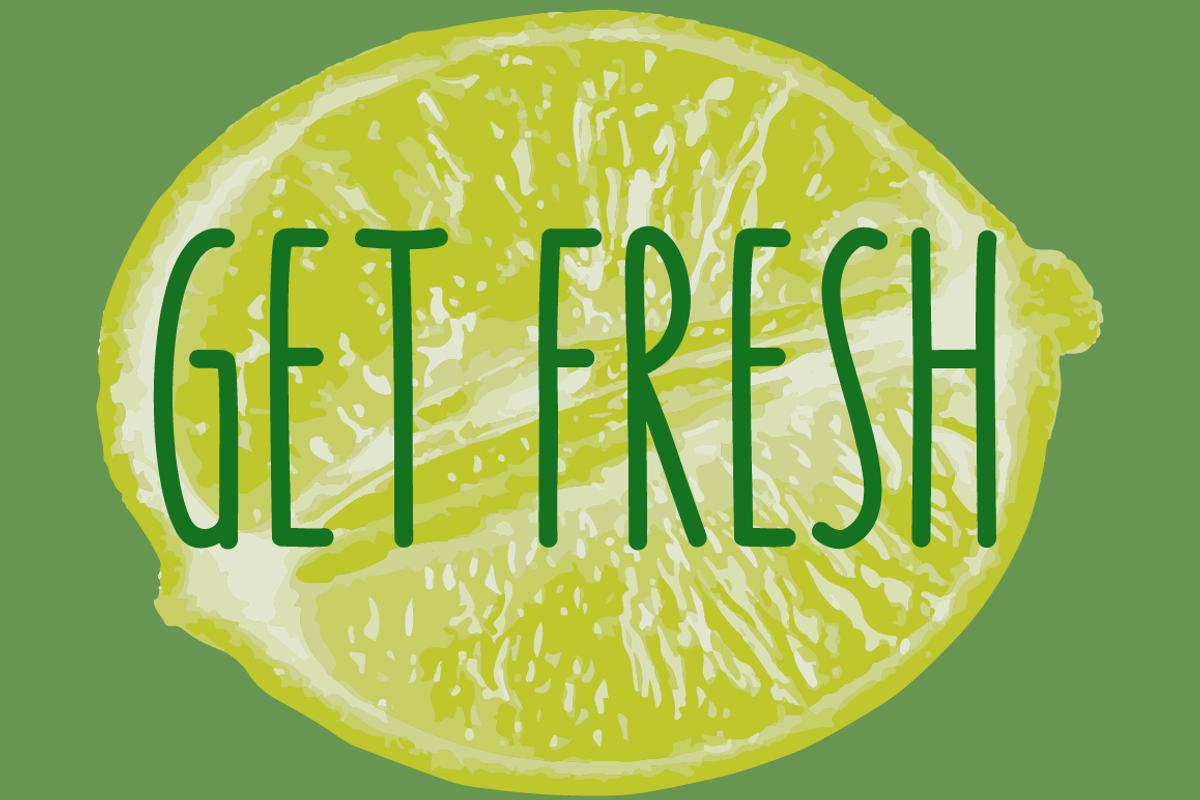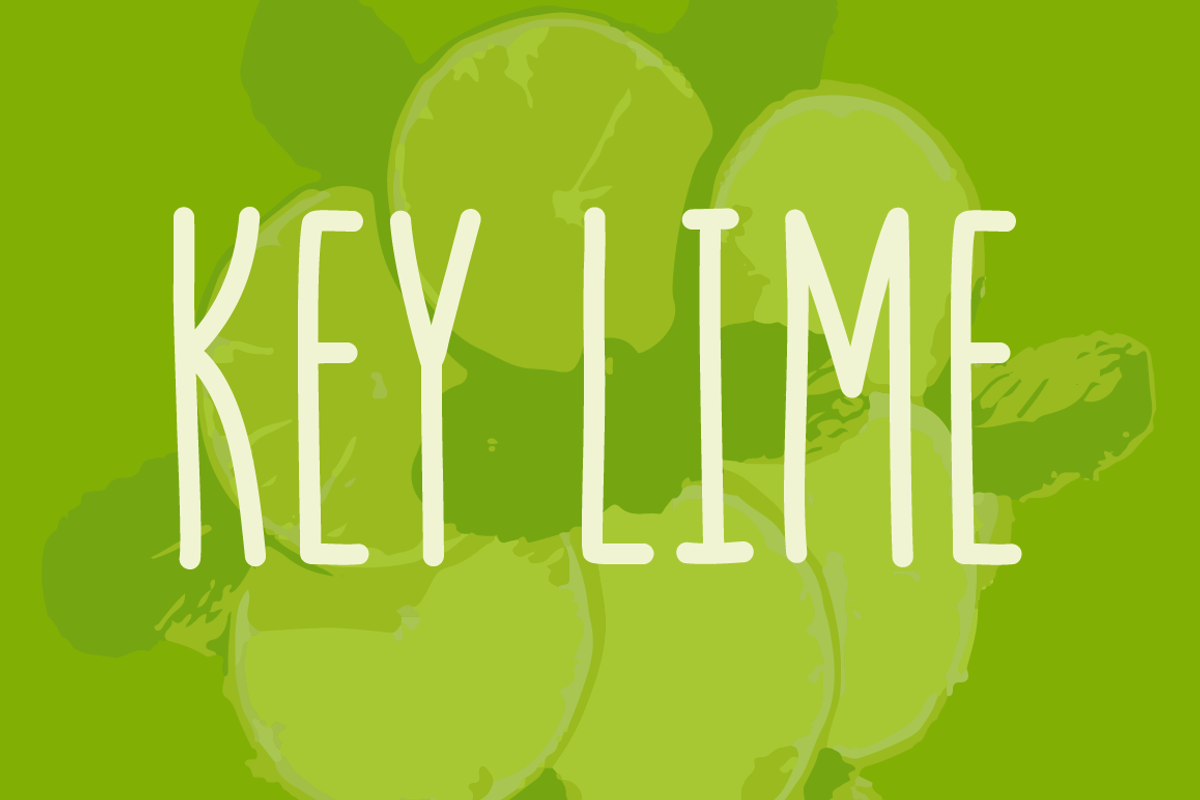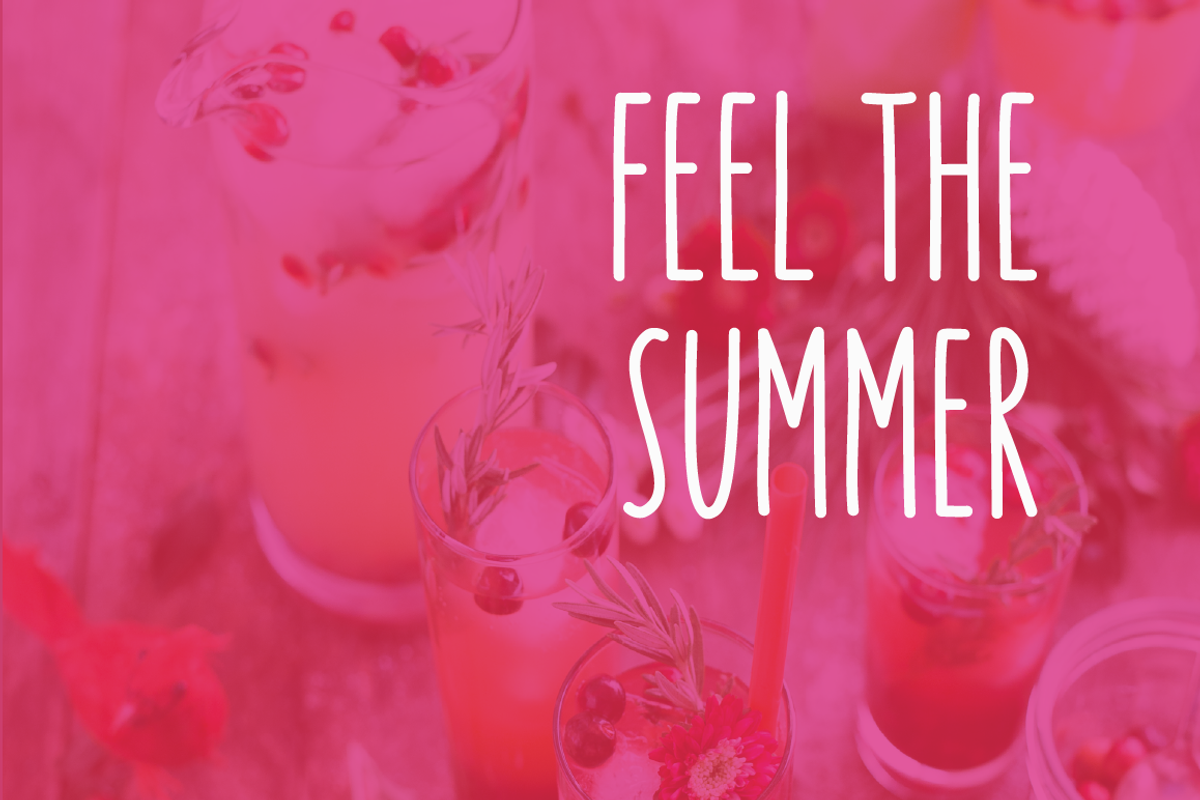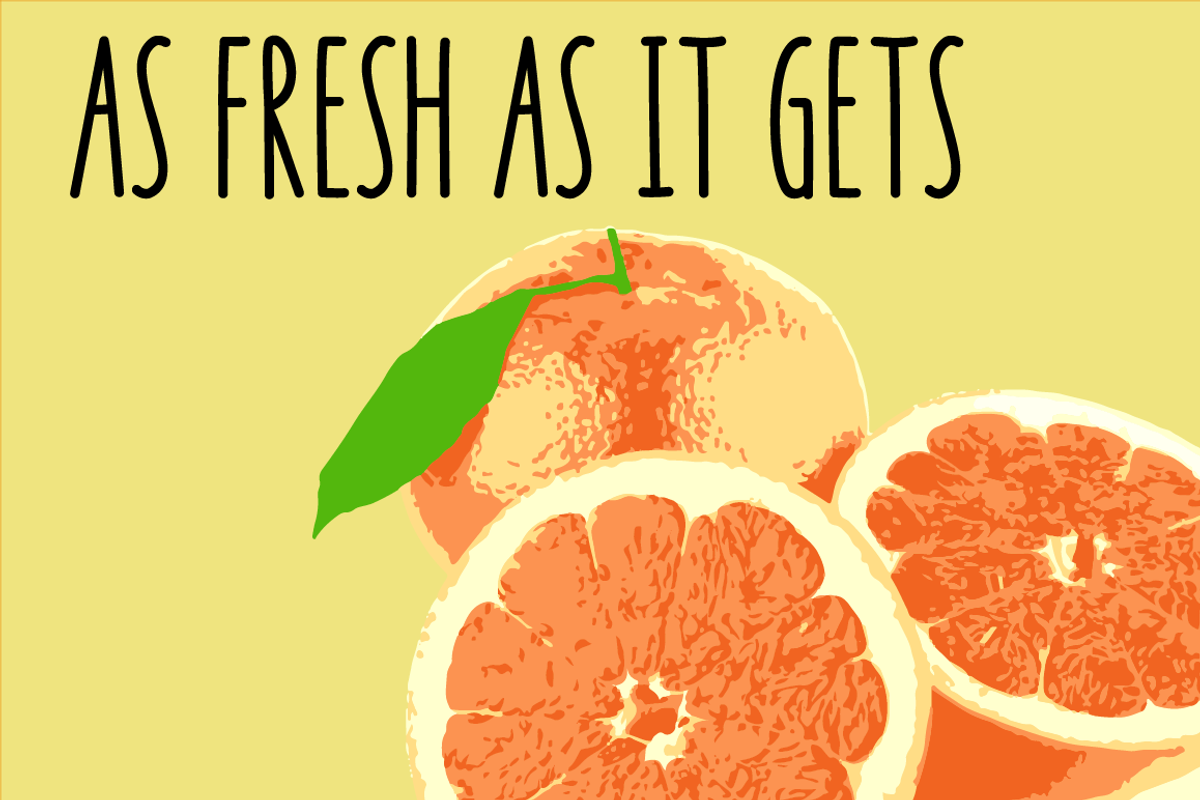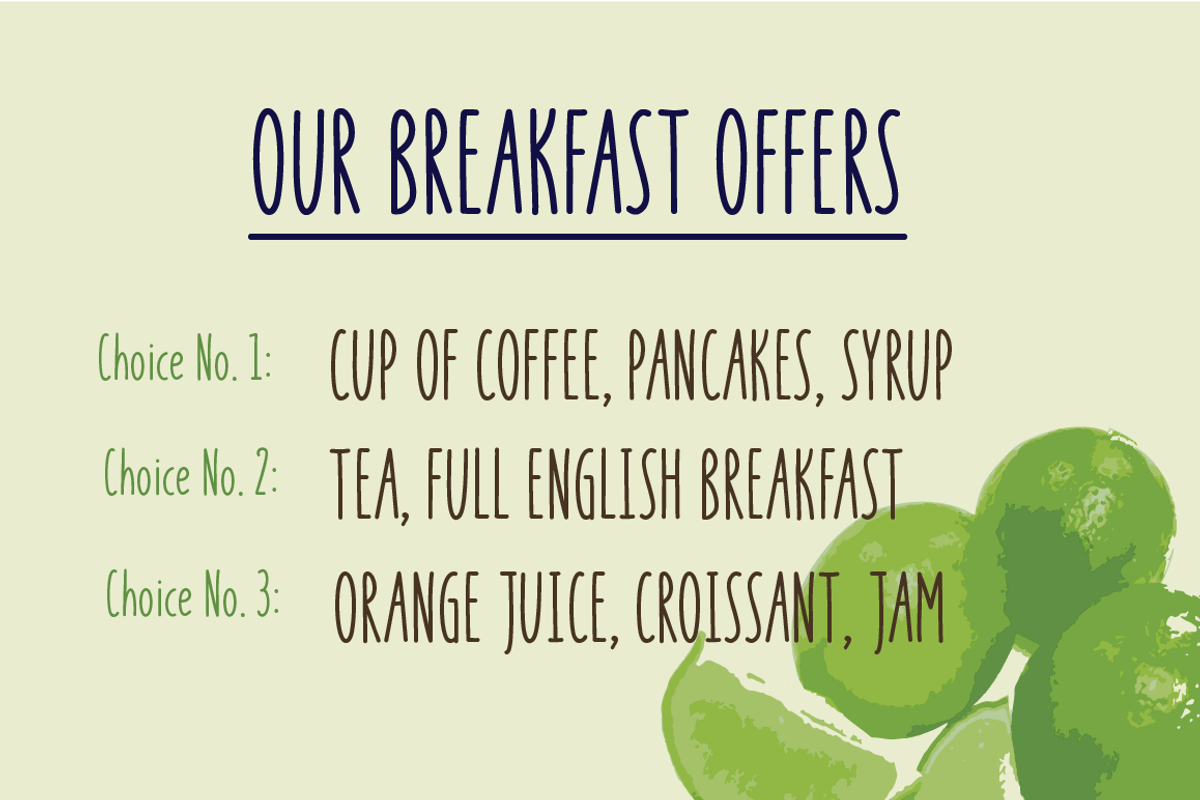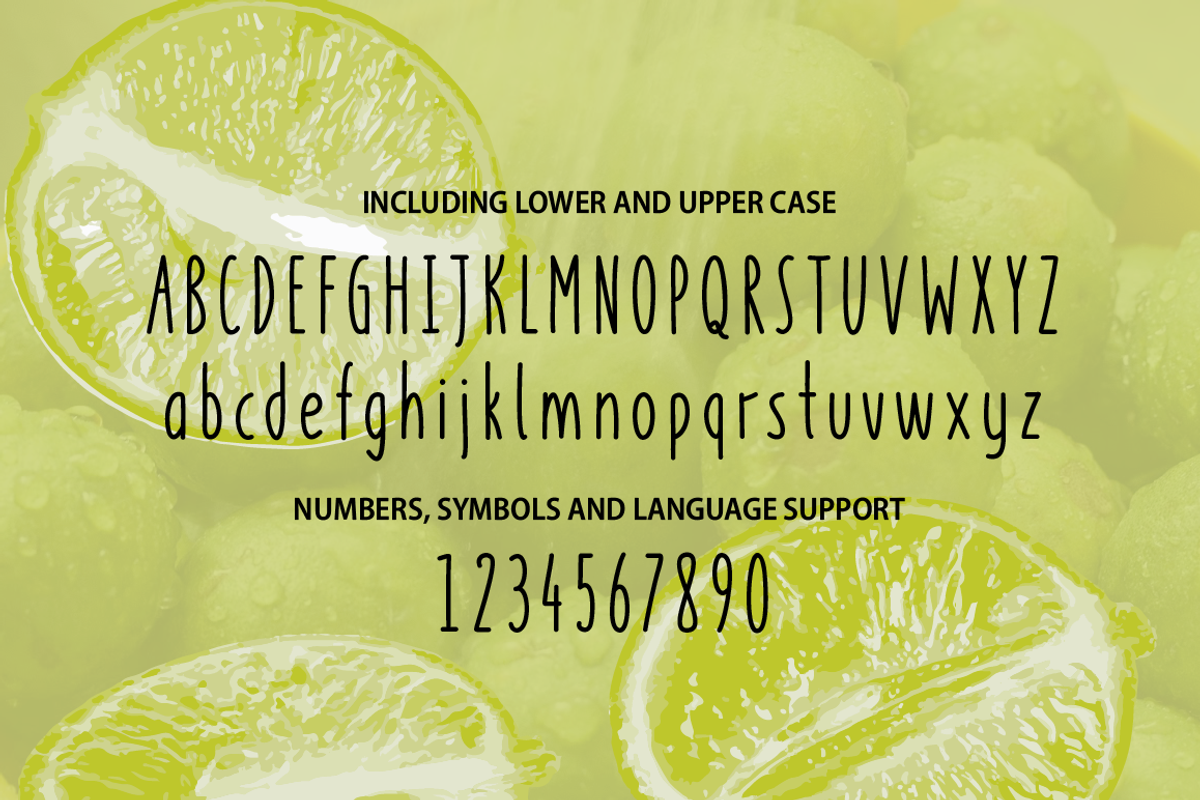
Key Lime - A fruity fresh drawn font
Meet Key Lime, the fresh and handwritten styled typeface for your next project. Choose between its lower and uppercase letters in order to create unique contrasts. Each of the over 350 glyphs were carefully designed to create a realistic and authentic handwritten touch.